These Fonts Will Change Your Cricut Craft Projects for the Better!
These days, many people are into cricut. It is a machine that can be used with various materials, a modern die-cutting technique. With the machine, you no longer need to cut your design after printing. The machine will do the work for you automatically.
This machine can make numerous craft projects, from cards to vinyl art. In this passage, you will get to know some fonts that can fit this printing technique. You can also learn some tips to beautify your craft projects.
8 Fonts to Add to Your Cricut Crafts
Adding text to your design helps with message delivery to the audience. Here are some fonts that will enhance your craft:
1. Monatia
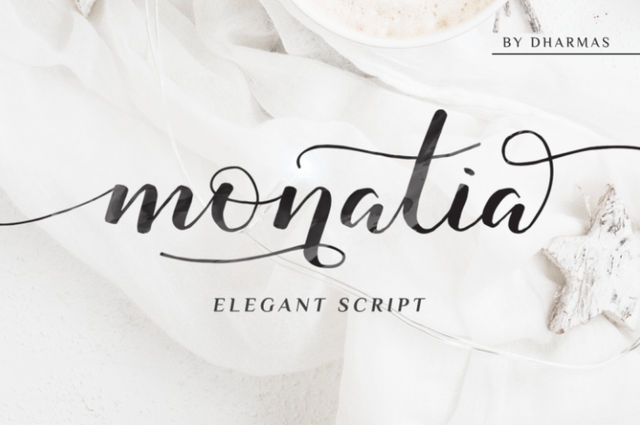
The Monatia font displays elegance and modernity. This script font offers you an authentic handmade look. Don’t worry about the handwriting design looking stiff though; Monatia has a contemporary touch. It combines thick and thin strokes, which makes the font look dynamic.
Created with OpenType features, Monatia includes beginning and ending swashes for most of its characters. You can even find alternates that support languages other than English. You can use this font for stationery, formal invitation cards, and even packaging.
2. Aprils
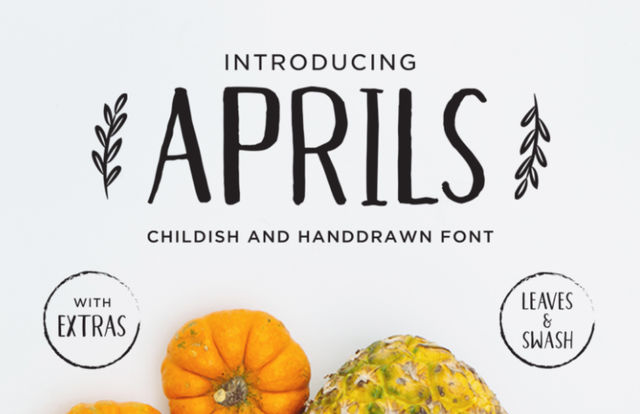
Aprils is a realistic hand-drawn font that suits various craft projects, such as cards and stickers. The height of the letters is similar whether you set the typewriter in lowercase or uppercase. The lowercase and capital letters have distinctive features, which will make your work look unique.
This font set comes with swashes and leaf ornaments that can further enhance your craft’s aesthetics. Luckily, Aprils also supports multilanguage use. Apply this font for projects that require playfulness.
3. Caliche
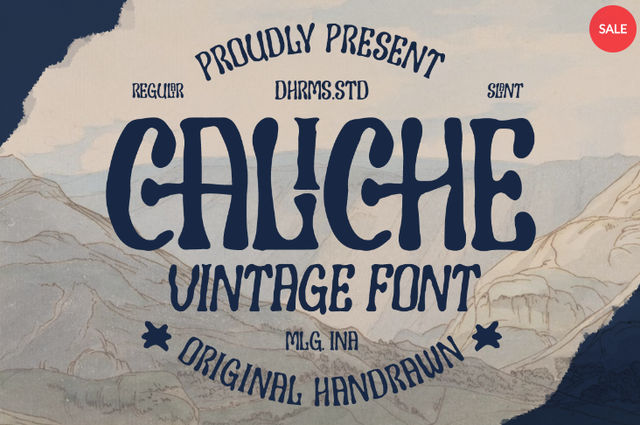
Vintage is a trend that never ends. If you are working on a vintage or retro craft project, consider using Caliche as the font. This font has a hand-drawn look that differs from others. It has a slightly rugged vibe. While the strokes have consistent weight, you can see some bumps here and there throughout the letters.
You can obtain Caliche in the regular and slant versions, ensuring you can tackle various design projects. Caliche perfectly fits the tropical summer vibe, but you can apply this font in other laid-back contexts.
4. Folklore
Making a cricut craft for a Halloween project is not an issue if you have Folklore at hand. This font is designed to be spooky yet fun! Folklore’s letters come in the all-capital format. This feature, combined with the proper space between characters, makes this font readable.
Folklore offers a touch of whimsicality to your craft project. It looks like a good doodle that even children can appreciate. This font is available in regular and outline formats. Use it for cards, posters, and stickers.
5. Hello Winds
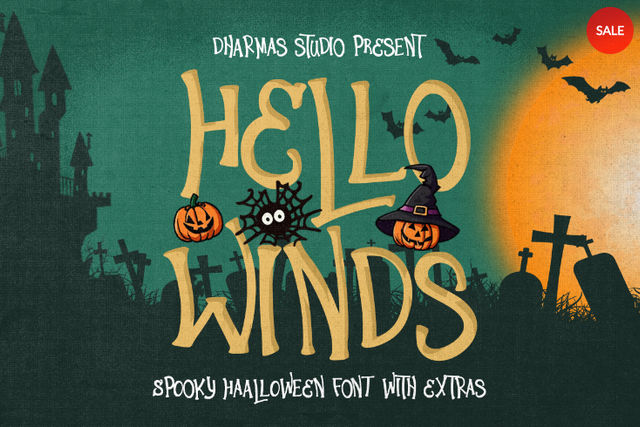
The word “trippy” may adequately describe Hello Winds. It is a font that is fun to look at, with letters in the same sentence not being perfectly aligned. This sort of messy yet organized look suits craft projects that do not take themselves seriously.
You get accented letters within the font package, allowing you to make designs in languages other than English. Additionally, Hello Winds comes with 46 Halloween-themed doodles that crank up the design’s cute level. Use this font to craft posters, headers, and even social media posts.
6. Spooky Zombie
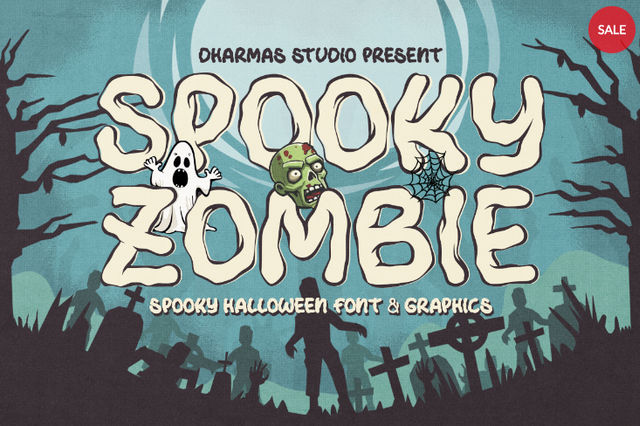
Another spooky font example for your cricut project is Spooky Zombie. This display font has an eerie quality, making it a great font alternative for your Halloween-related designs. The fact that the font comes with 26 Halloween-themed doodles also helps its case.
With its purchase, you get the regular and outline version. The outline version will obviously offer more creative freedom. You can add shading to make the text appear three-dimensional. Spooky Zombie is good for headlines because of its attention-grabbing qualities.
7. Flicking
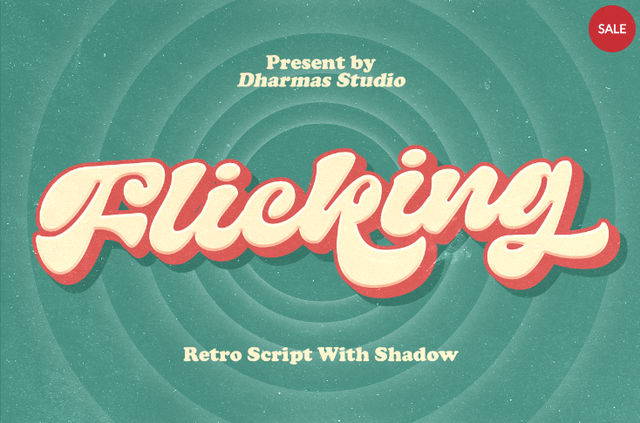
Flicking is the perfect font if you are working on a retro-themed design. This script font embodies the 1960s with its chunky shape and quirky swashes. You will notice that the font has tight space between letters, some connected with ligatures.
Because of its structure, you can use Flicking to make labels and invitations. Ensure that you do not apply this font for high-density text because it will render the text unreadable. Flicking is available in regular and shadow formats. You can combine the two to add more flair to the design.
8. Leather Necks
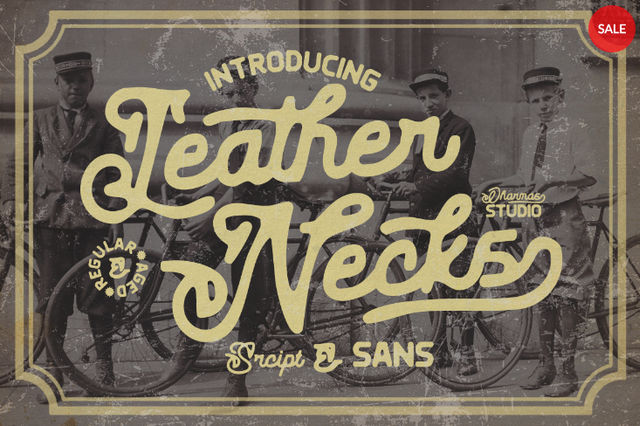
This vintage font is great for making stickers, thanks to its striking look. Simply type your powerful words with Leather Necks, and you will have an attractive design at hand. The great thing is that you get the script and sans versions of the font. When combining these two formats, you will get a well-balanced text design.
Incorporating text into your cricut designs is a way to spice them up. After all, words are more effective when communicating your message clearly. The aforementioned fonts are among the best options because of their versatility when printed across different media.